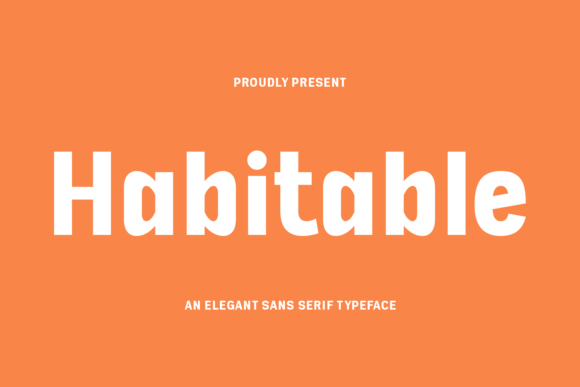
Designing for Connection
As designers, we’ve all been there – staring at a blank canvas, trying to bring an idea to life. Sometimes it’s the smallest details that make the biggest impact. For me, it was a casual conversation with a friend that sparked an idea. We were brainstorming ways to create a sense of community in a new neighborhood, and I couldn’t help but think about the role typography plays in setting the tone.
Enter the Habitable Font, a beautifully crafted sans serif typeface designed to evoke a sense of approachability and modernity. With its heavy weight and soft, rounded letterforms, this font is perfect for creating a warm and inviting atmosphere. Whether you’re designing a brand identity, a website, or a marketing campaign, the Habitable Font is an excellent choice for conveying a sense of connection and community.
Habitable Font Key Features
- Unique Characteristics: Habitable Font features a unique blend of futuristic and organic elements, creating a distinctive and eye-catching design that sets it apart from other fonts.
Honest Review of Habitable Font
Overall, I was quite impressed with Habitable Font. It has a unique and fresh design that sets it apart from other fonts. ✨ Here are some of its strengths:
- High legibility: The font is highly legible, making it perfect for body text, headings, and even signage.
- Neutral tone: The neutral tone of the font makes it suitable for a wide range of applications, from modern designs to traditional settings.
- Clean design: The clean design of Habitable Font makes it easy to read and understand, even at smaller font sizes.
- Limited expressiveness: While the font is highly legible, it may not be the best choice for expressing complex emotions or creative ideas.
- May not be suitable for very formal settings: Habitable Font is more suited for modern and creative applications, and may not be the best choice for very formal settings like academic or professional documents.
Overall, I would highly recommend Habitable Font for designers looking for a fresh and modern font that is easy to read and understand. While it may not be the best choice for every application, it is a versatile font that can be used in a wide range of settings.
Tips for Getting the Most Out of Habitable Font
Use Habitable Font to create a cohesive brand identity across your designs. Experiment with different font sizes and styles to add visual interest. Pair Habitable Font with other fonts to create a unique and eye-catching design.
Habitable Font is ideal for use in:
- Marketing materials (brochures, flyers, etc.)
- Website design
- Print materials (business cards, letterheads, etc.)